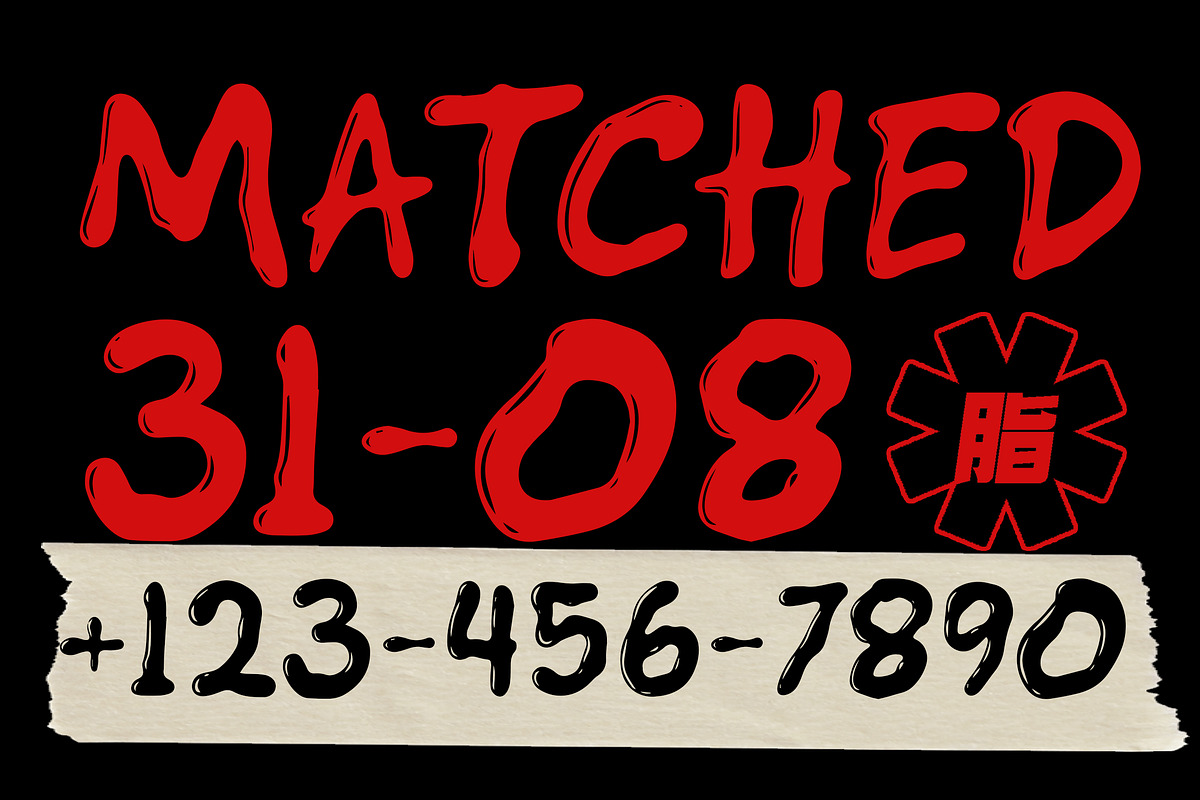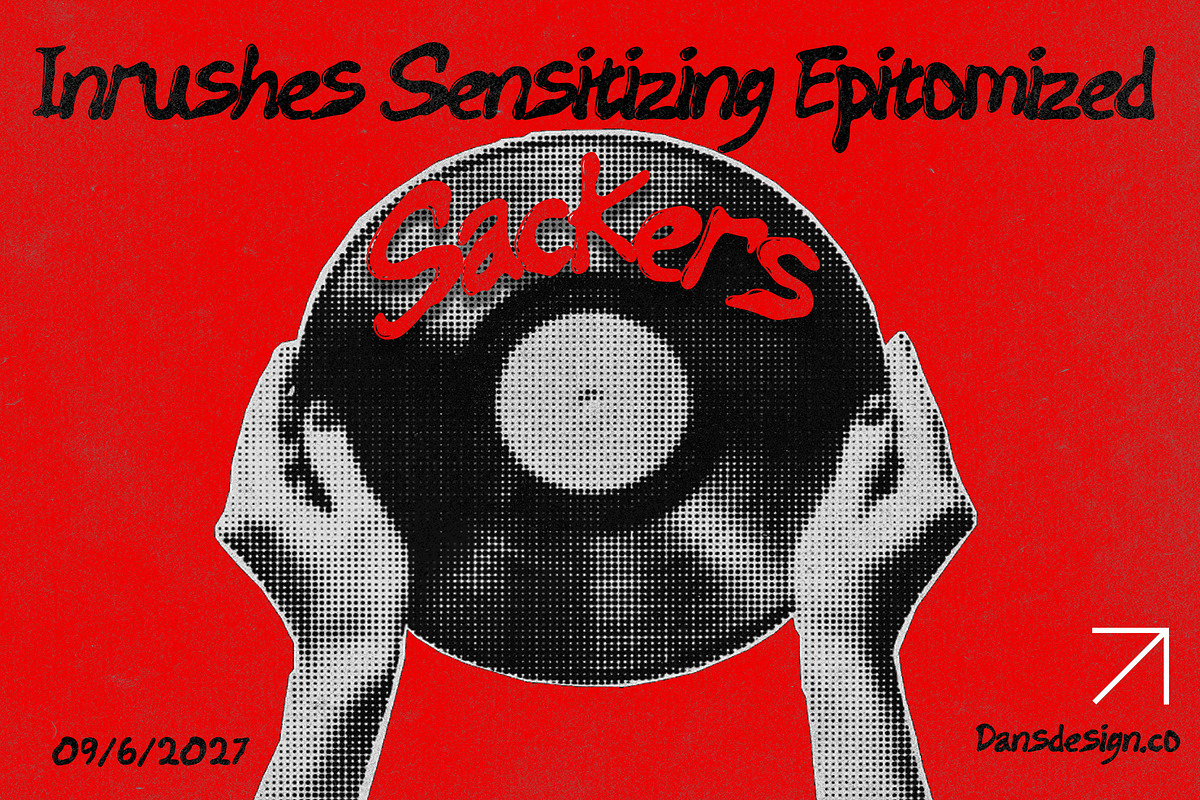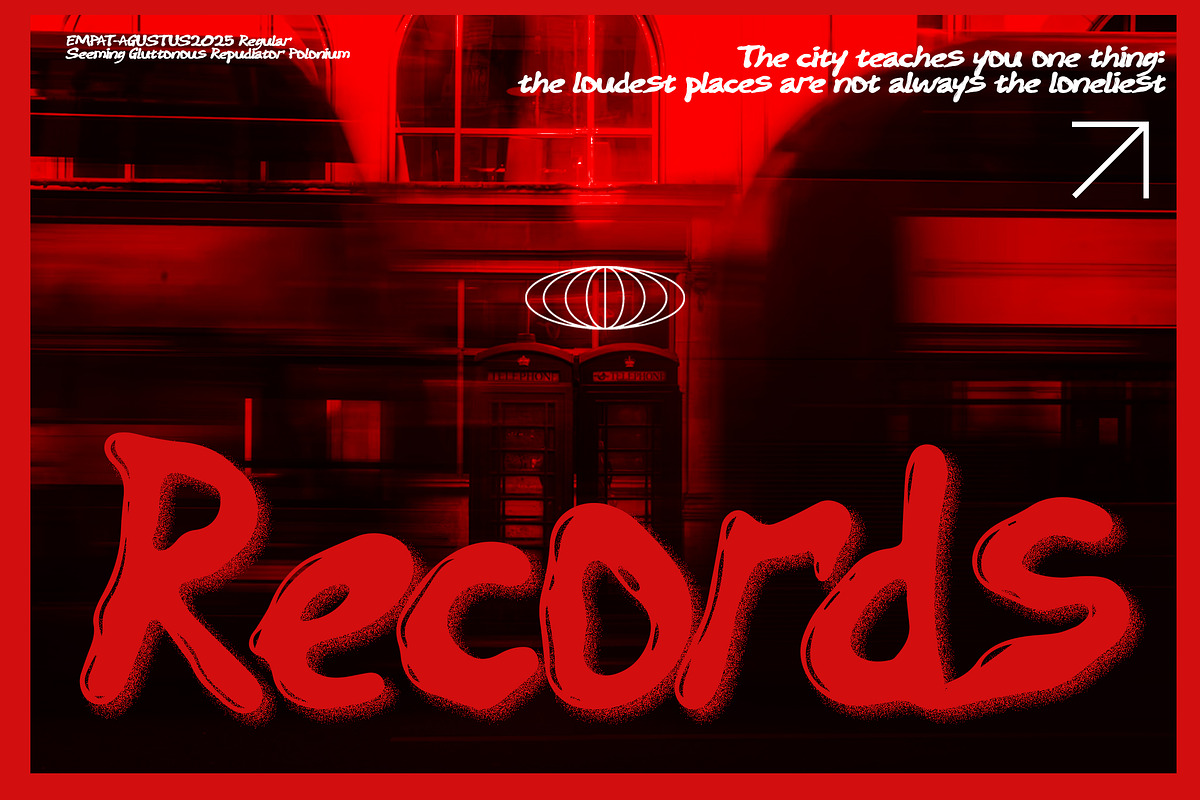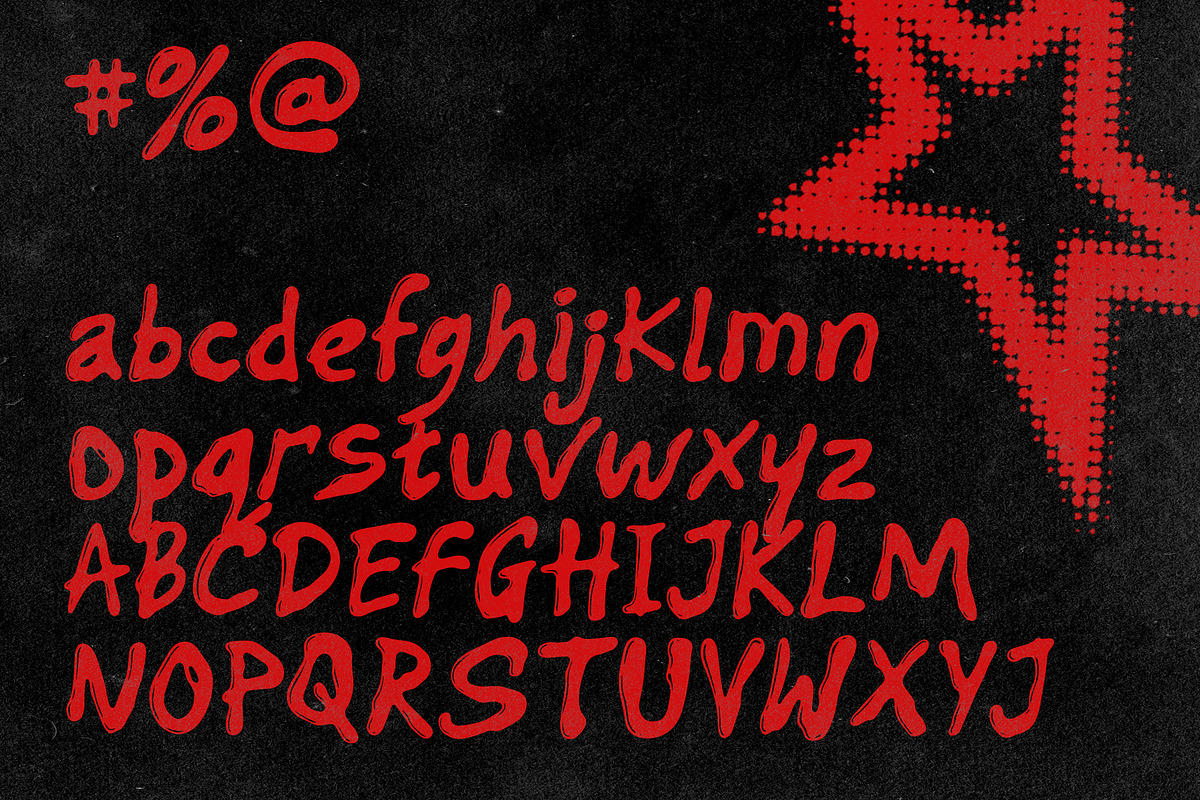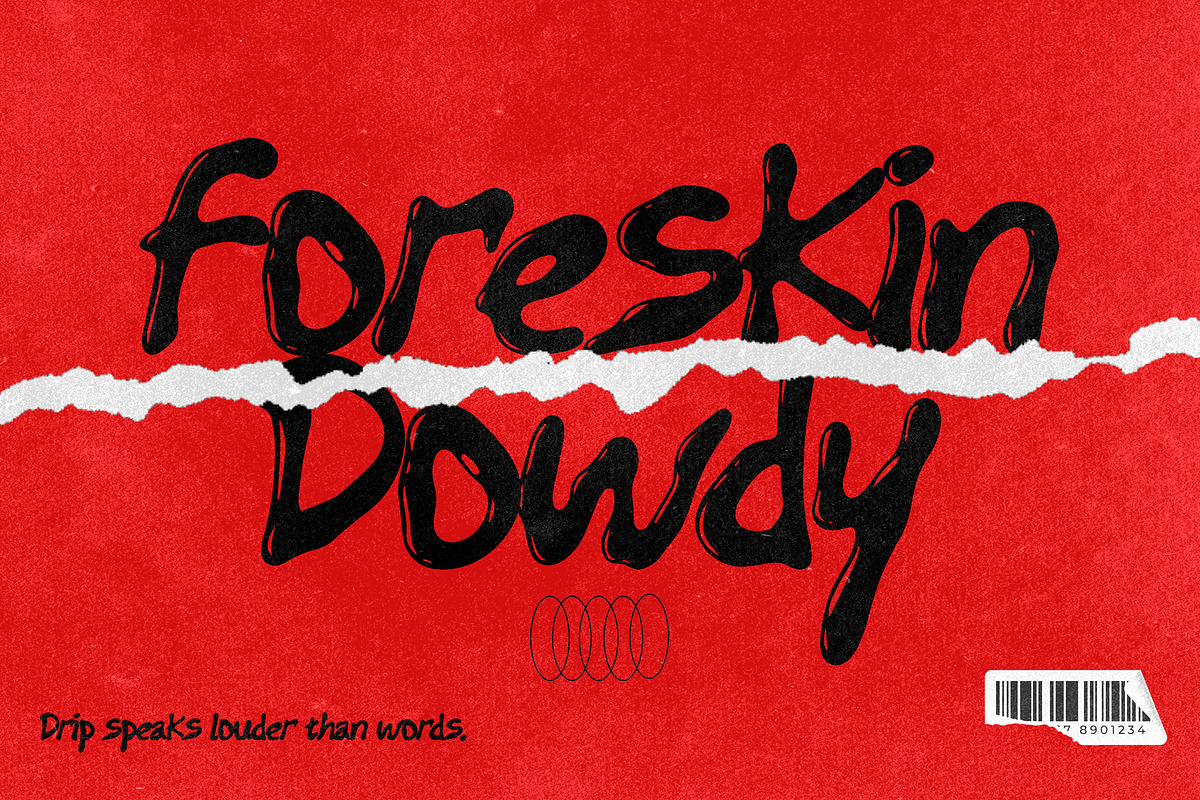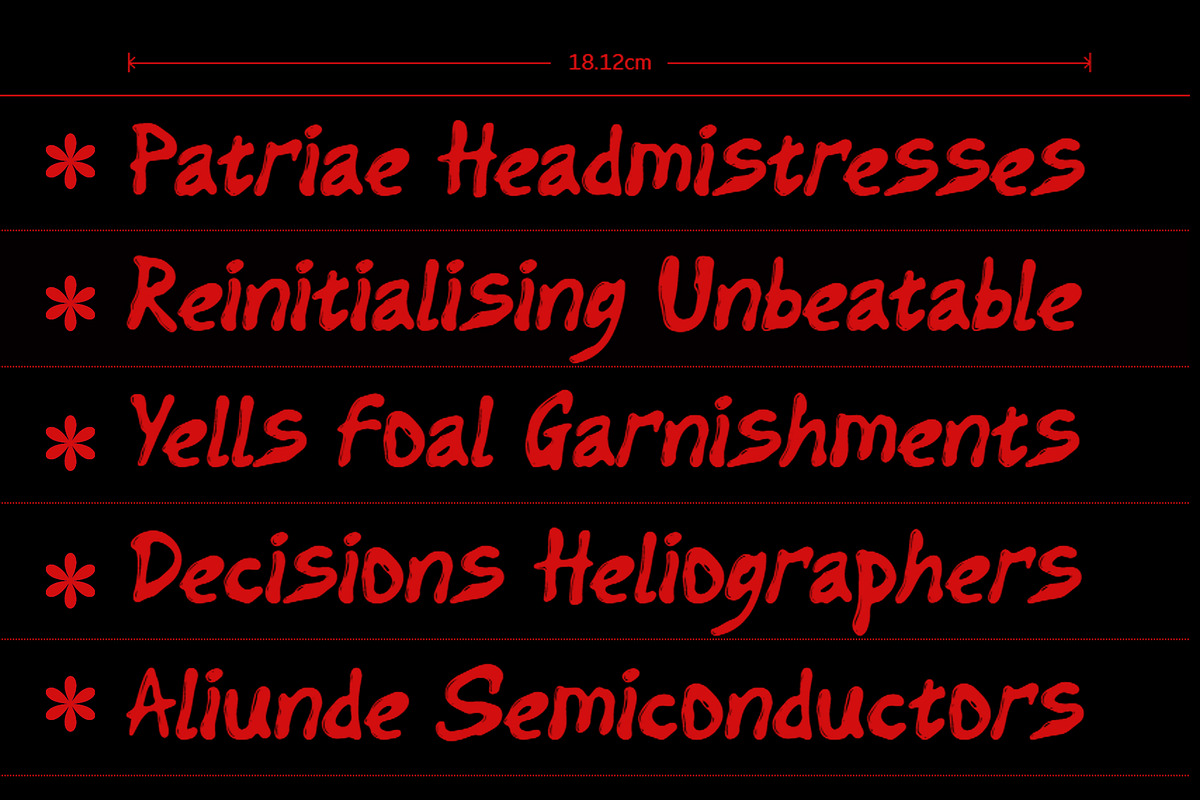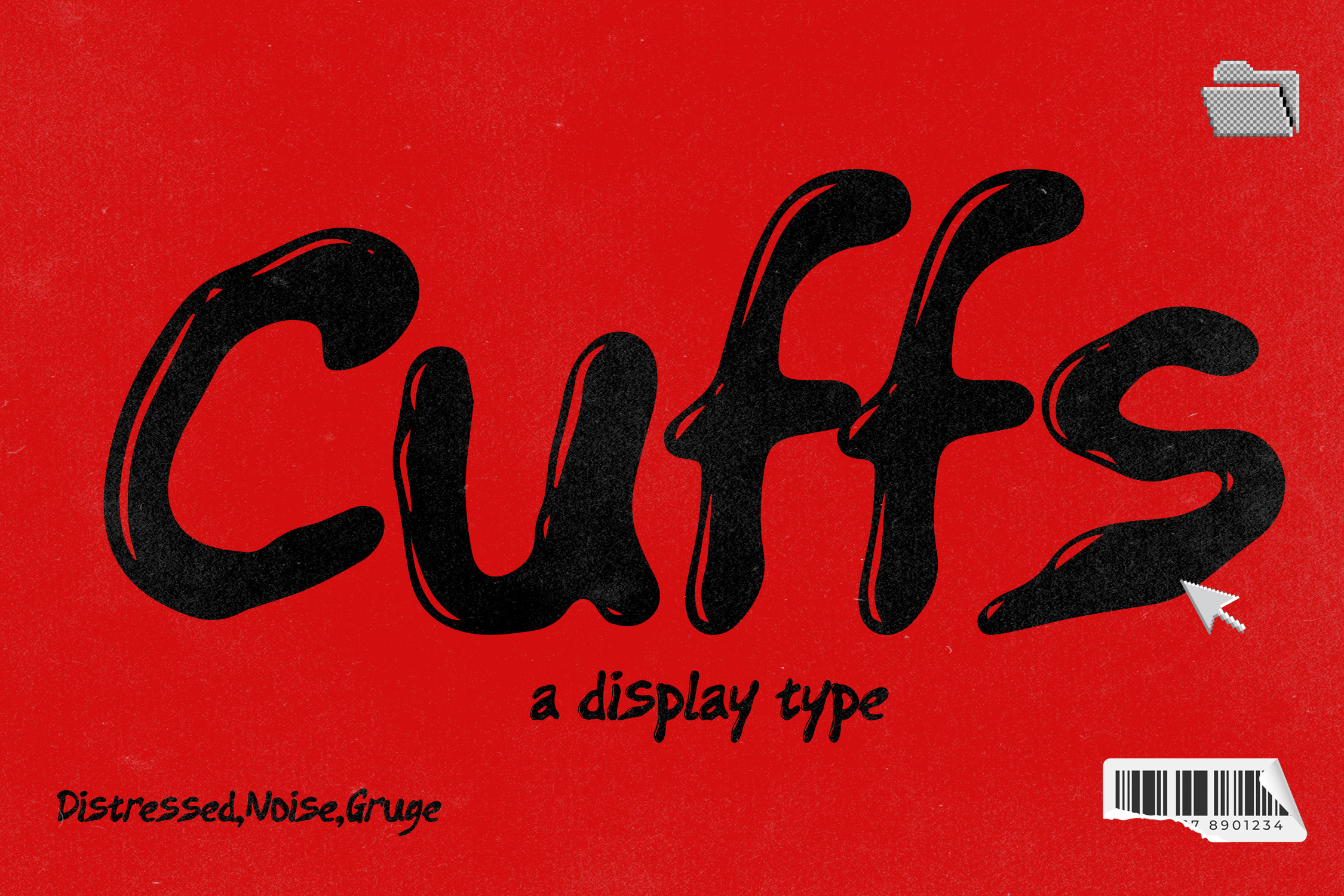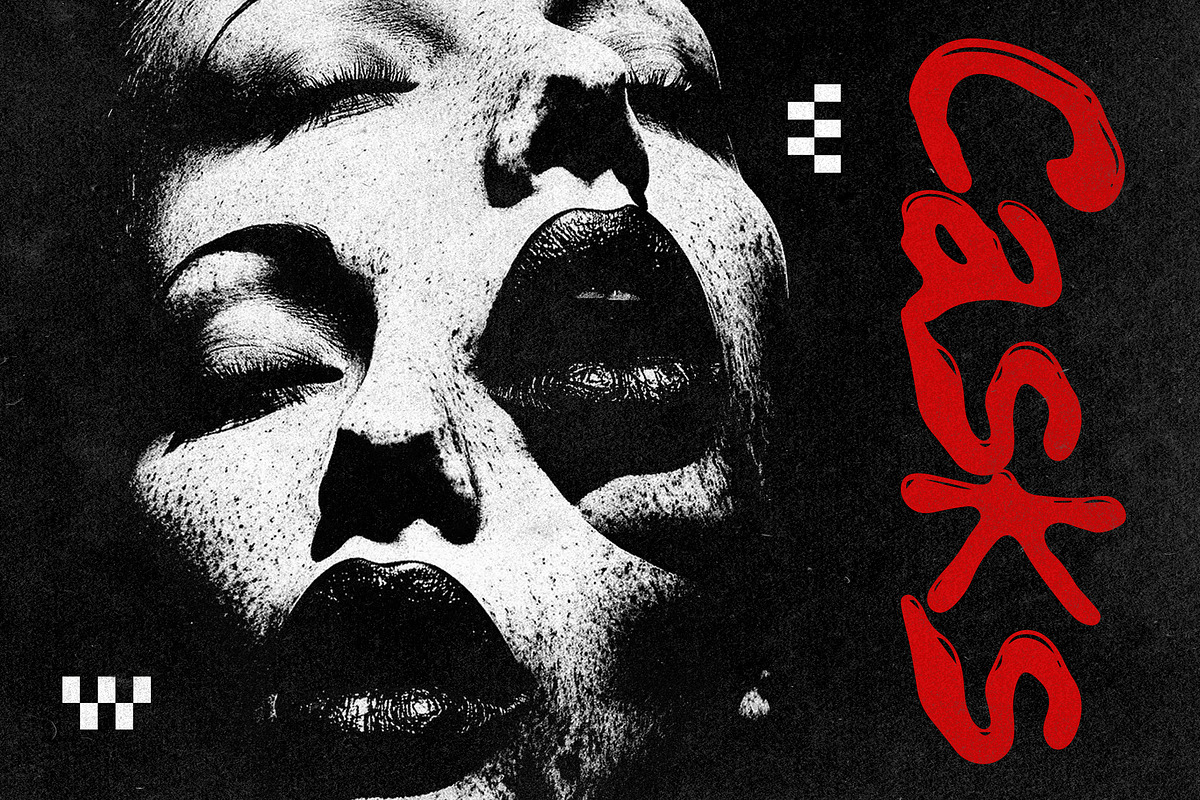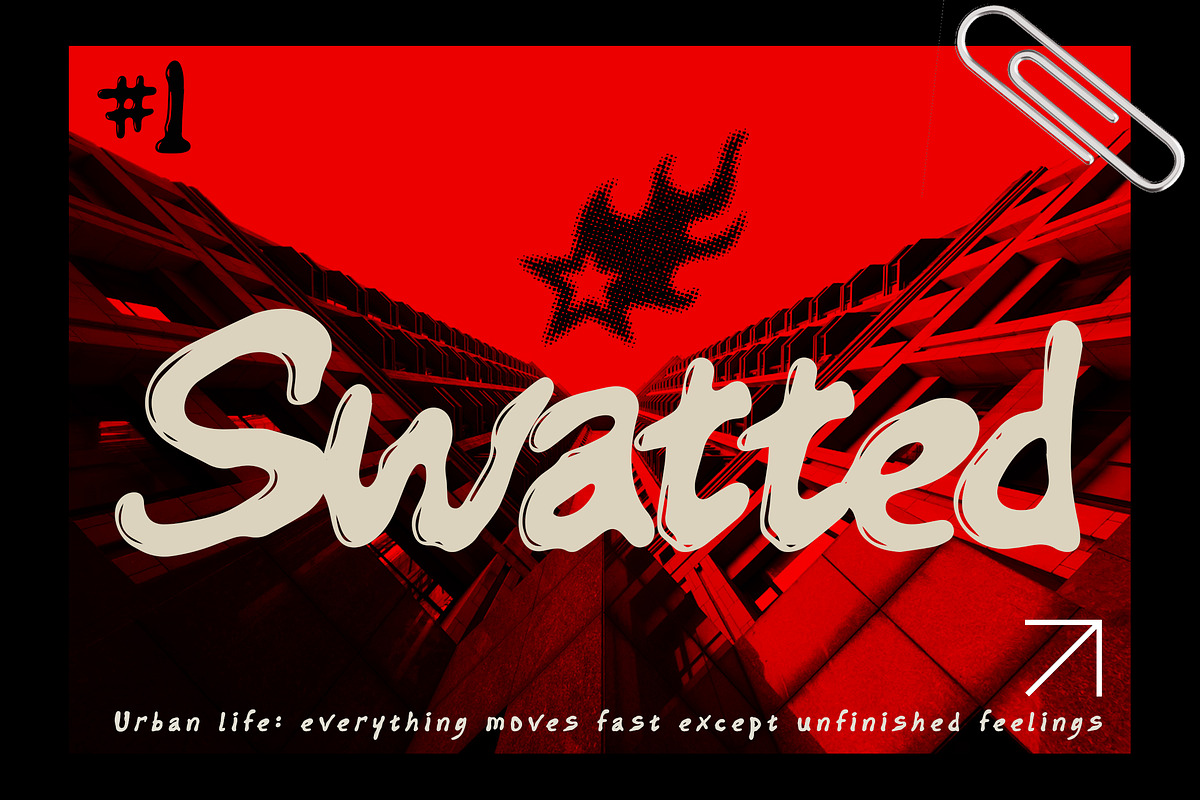
Cuffs Distressed Noise Display Font
Cuffs – Distressed Grunge Display Font is a bold and expressive handwritten display typeface crafted with a raw, imperfect attitude. Featuring thick ink-like strokes, dripping curves, and distressed textures, Cuffs captures the spirit of underground culture, grunge aesthetics, and rebellious creativity.
Designed to stand out, this font is perfect for music posters, album artwork, editorial headlines, packaging, social media graphics, event promotions, creative projects, and any design that demands a loud, energetic, and unapologetic visual identity.
Its handcrafted shapes and rough details create an authentic urban feel, making every word look spontaneous, emotional, and full of character.
✦ Features
Uppercase & Lowercase Characters
Multilingual Support (Accents)
Distressed & Grunge Style
Handcrafted Letterforms
OpenType Standard
Whether you're creating alternative music artwork, posters, zines, creative branding, advertising materials, or bold visual compositions, Cuffs – Distressed Grunge Display Font delivers a striking impact that refuses to be ignored.
Make noise. Break the rules. Leave a mark with Cuffs.